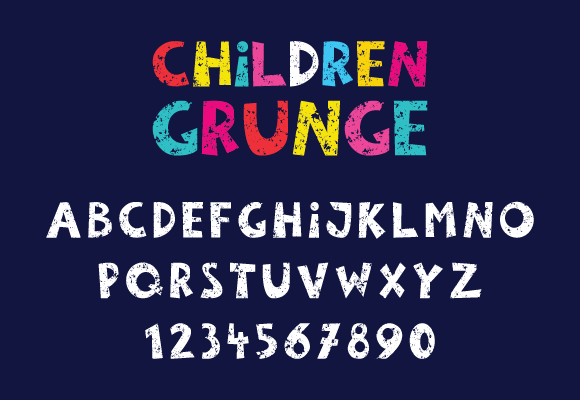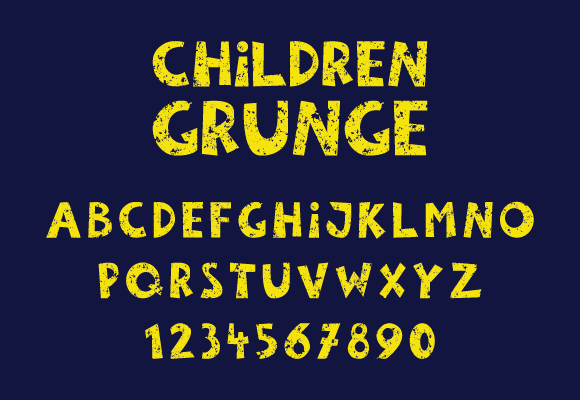
Introduction to Children Grunge Font
Children Grunge Font is a typeface designed with a playful and childlike aesthetic.
It features a set of whimsical, cheerful characters, often reminiscent of like handwritten letters or doodles made for children You can use this font for any kid’s projects proudly.
Key Features of Children Grunge Font